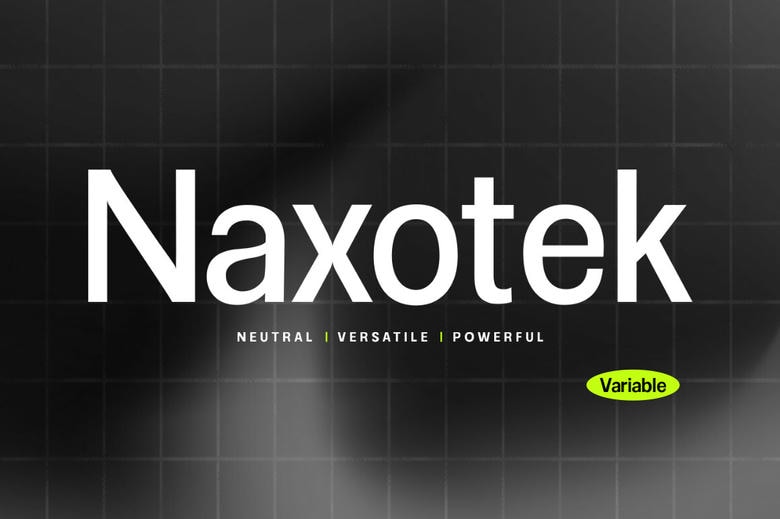
Naxotek Font
Naxotek is a group of realistic sans serif fonts are designed for professionals and family use. Including scale nine matched thicknesses and nine italics each individual something different and all for it coordinated to be.
As it is visually quite simple, low contrast, having a high x-height, and a thin black structure, especially with italics, Naxotek is ideal as the first font in visuals and texts, as well as for branding, advertising, packaging, headlines, magazines, websites, logo creations, and similarly.
Naxotek Sans Serif Font Family